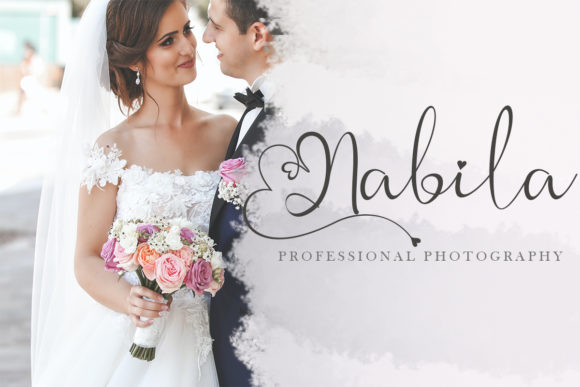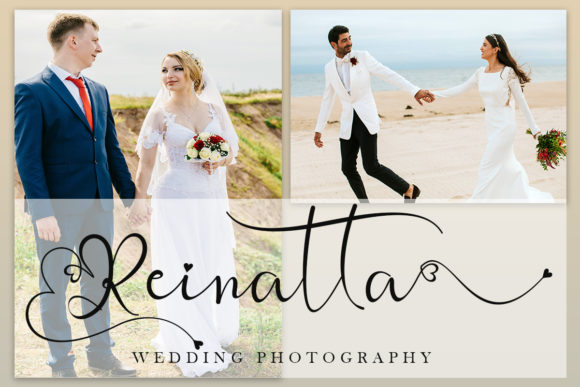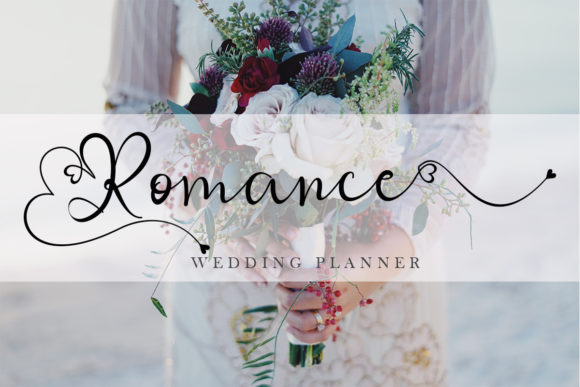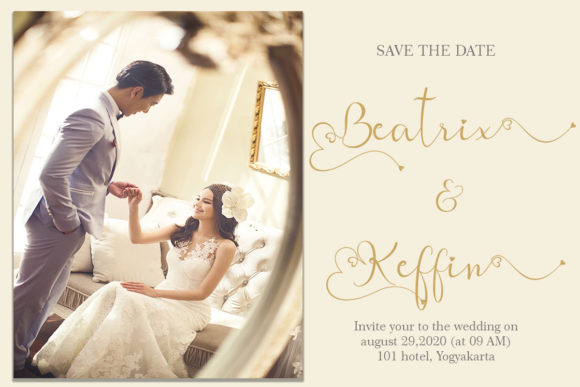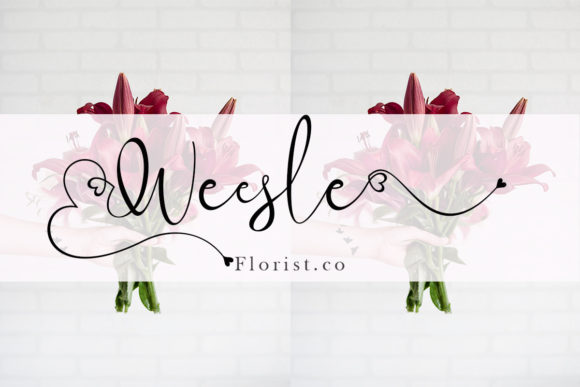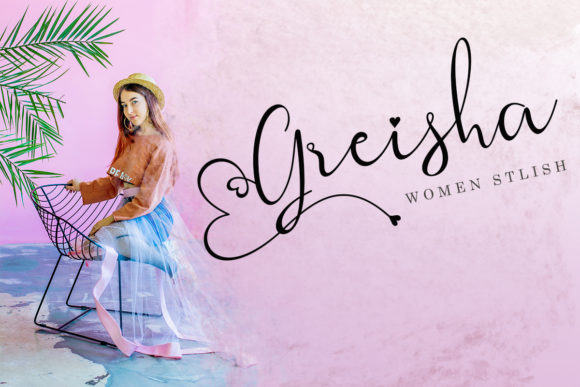
The Perfect Brush Stroke: Unlocking the Charm of Khalitta Font
There’s something magical about the first time you pick up a pen and paper to create. The scratch of the nib on the page, the flow of ink, and the anticipation of bringing your ideas to life – it’s a feeling that never gets old. As designers, we’re always on the lookout for the perfect tools to capture this essence and breathe life into our creations. Enter Khalitta Font, a stunning script font that adds a touch of elegance to any design.
With its varying baseline, smooth lines, and gorgeous glyphs, Khalitta Font is the perfect choice for designers who want to add a handwritten touch to their work. Whether you’re creating wedding invitations, thank you cards, or logos, this font is sure to impress. Its PUA encoding also makes it easy to access all the glyphs and swashes, giving you complete control over your design.
Khalitta Font Key Features
- Size: 1000 glyphs, including Latin, Arabic, and Devanagari scripts
- Resolution: Optimized for high-resolution displays (retina and 4K)
- Unique Characteristics: Elegant and modern design, suitable for a wide range of applications, including branding, publishing, and digital media
- Language Support: Multilingual support, including Latin, Arabic, Devanagari, and other languages
- Font Weight: Multiple font weights, including light, regular, medium, bold, and extra bold
- Font Style: Supports various font styles, including italic, bold italic, and condensed versions
Khalitta Font Review
Overall, I’d say the Khalitta font is a solid addition to any designer’s toolkit. It’s got a unique blend of elegance and modernity that’s perfect for creative projects.
- Unique typography: The Khalitta font stands out with its distinctive letterforms and stylish flair.
- High-resolution quality: The font looks great at various sizes and resolutions, making it perfect for digital and print projects.
- Wide language support: The font supports a wide range of languages, making it a great choice for international projects.
- Not ideal for body text: The font’s unique style can be overwhelming when used extensively, making it better suited for headlines and titles.
- Limited font weights: The font only comes in a few weights, which can limit its versatility in certain projects.
The Khalitta font is a great choice for designers looking to add a touch of sophistication and creativity to their projects. While it may not be ideal for every project, it’s a valuable addition to any designer’s toolkit.
The Khalitta font is a modern, elegant font that is perfect for:
- Business cards and brochures
- Event branding and signage
For the best results, use the Khalitta font in combination with a clean and simple design. Experiment with different font sizes, colors, and styles to create a unique and eye-catching look.